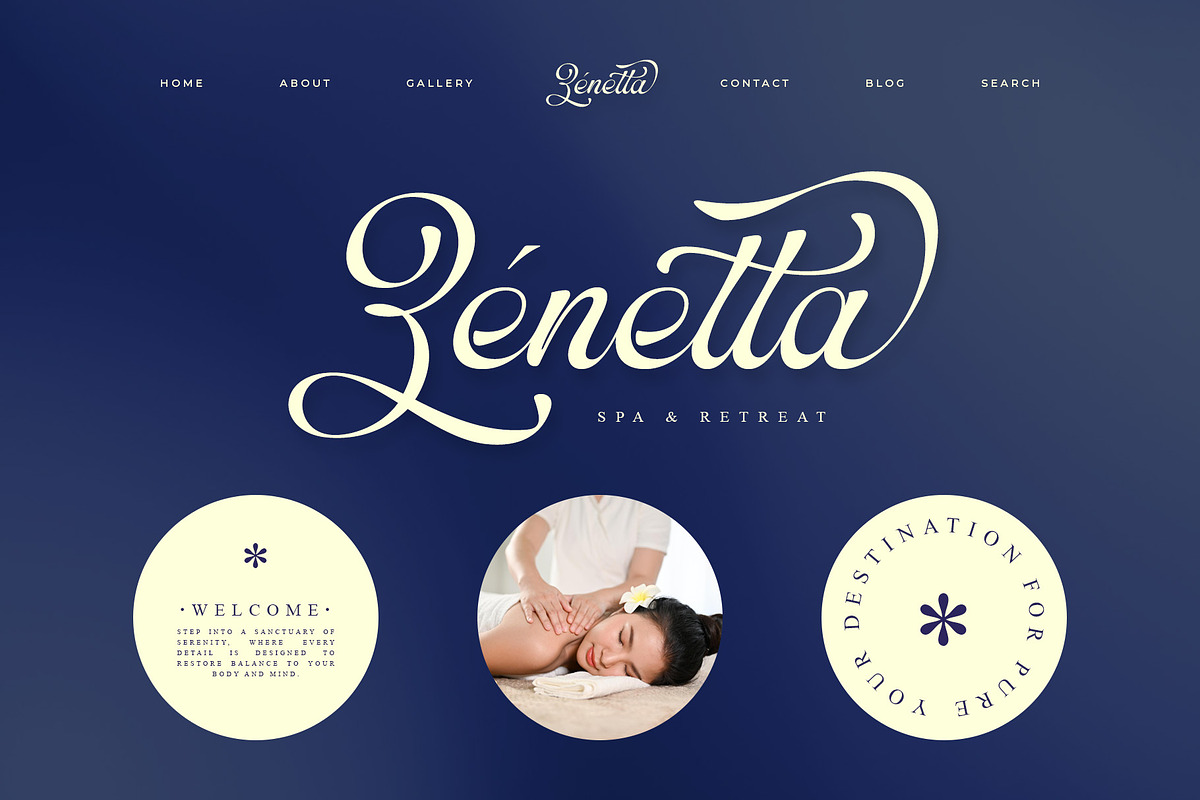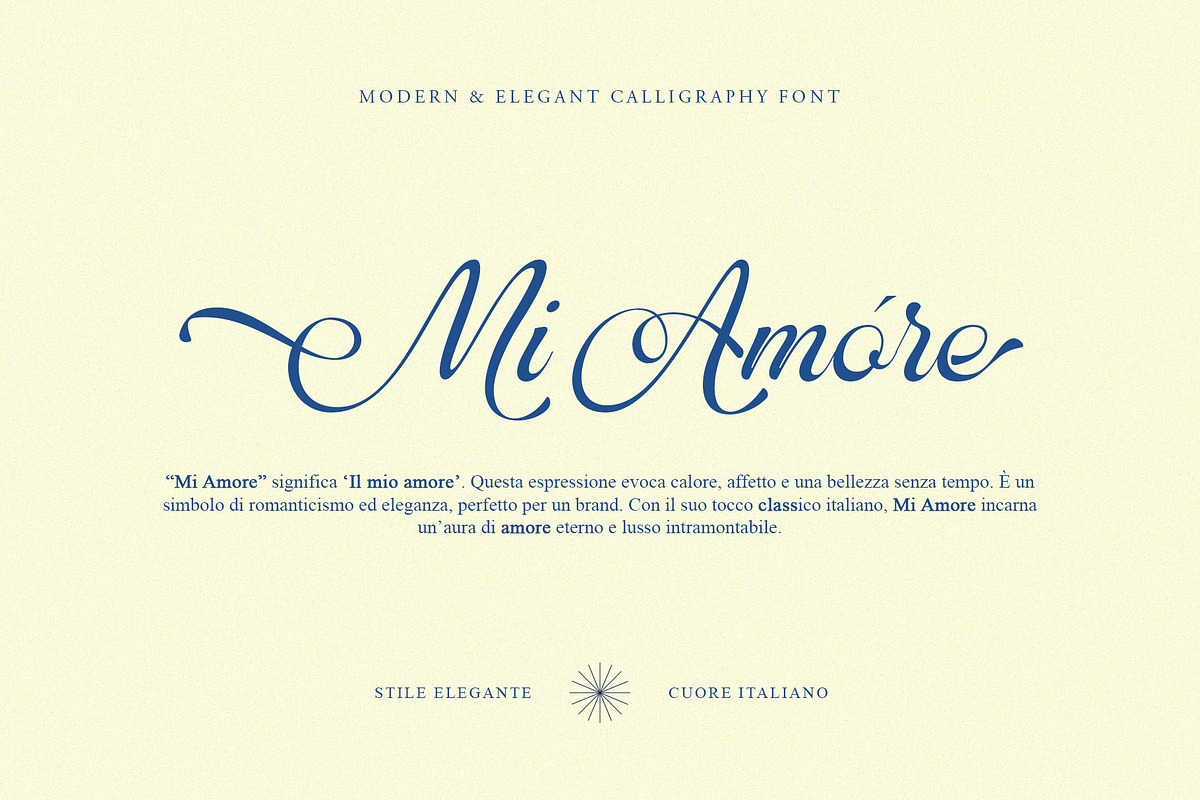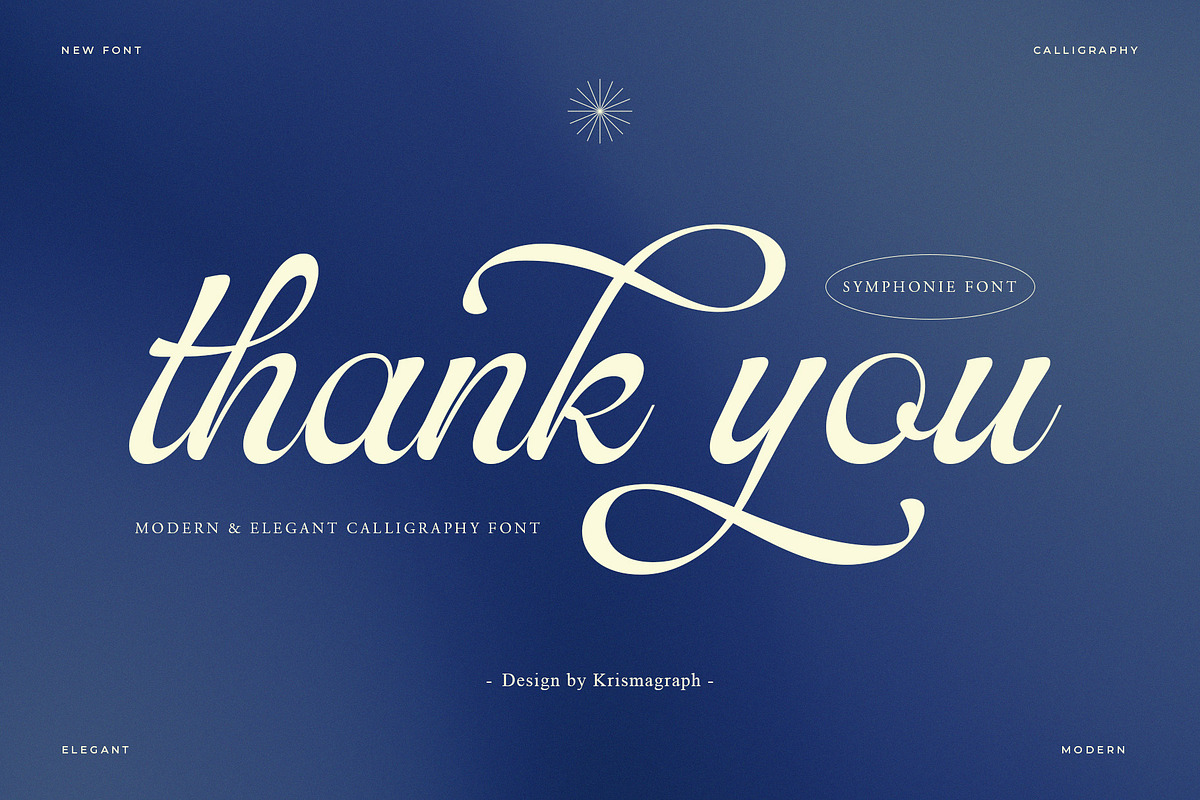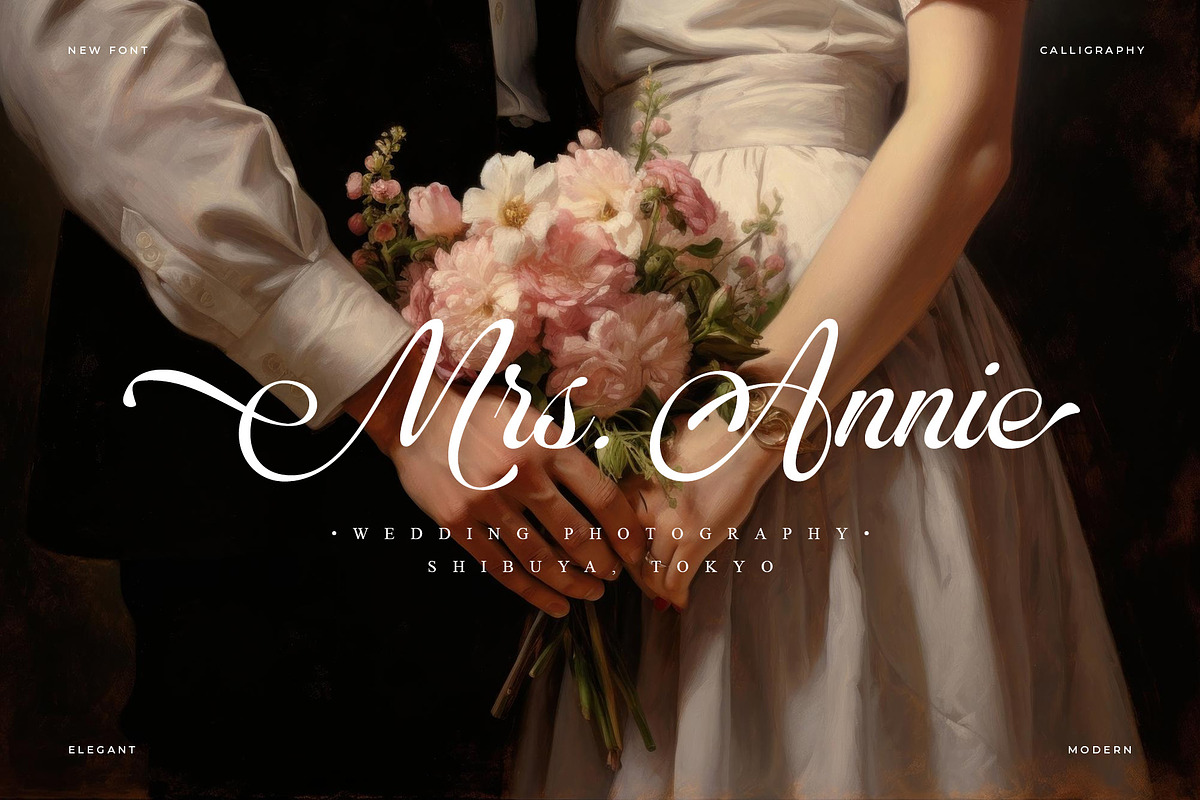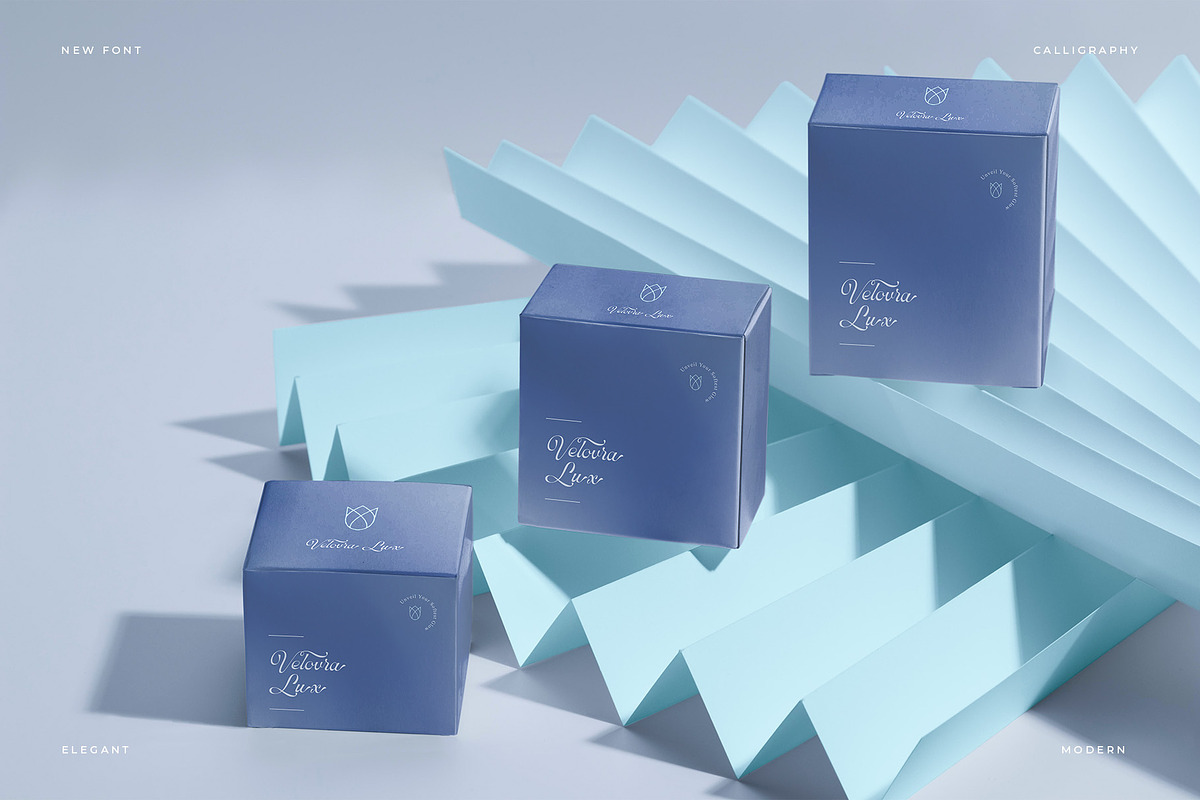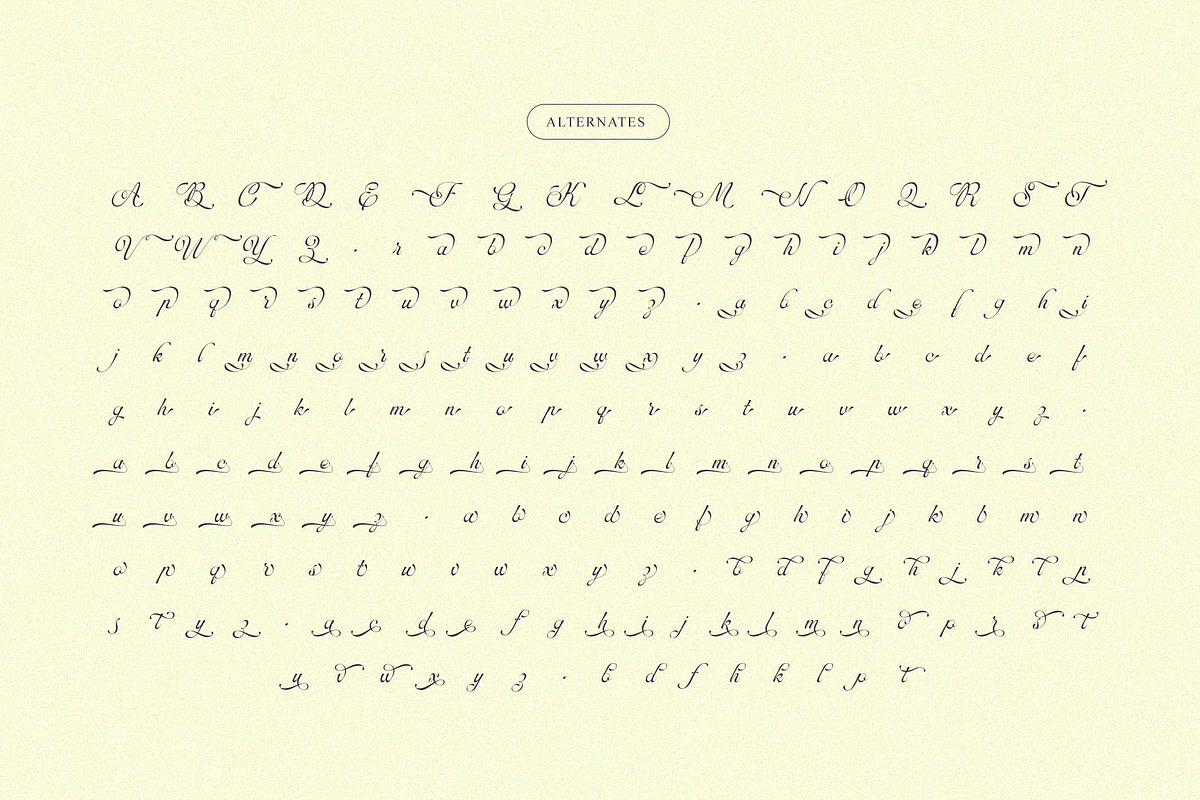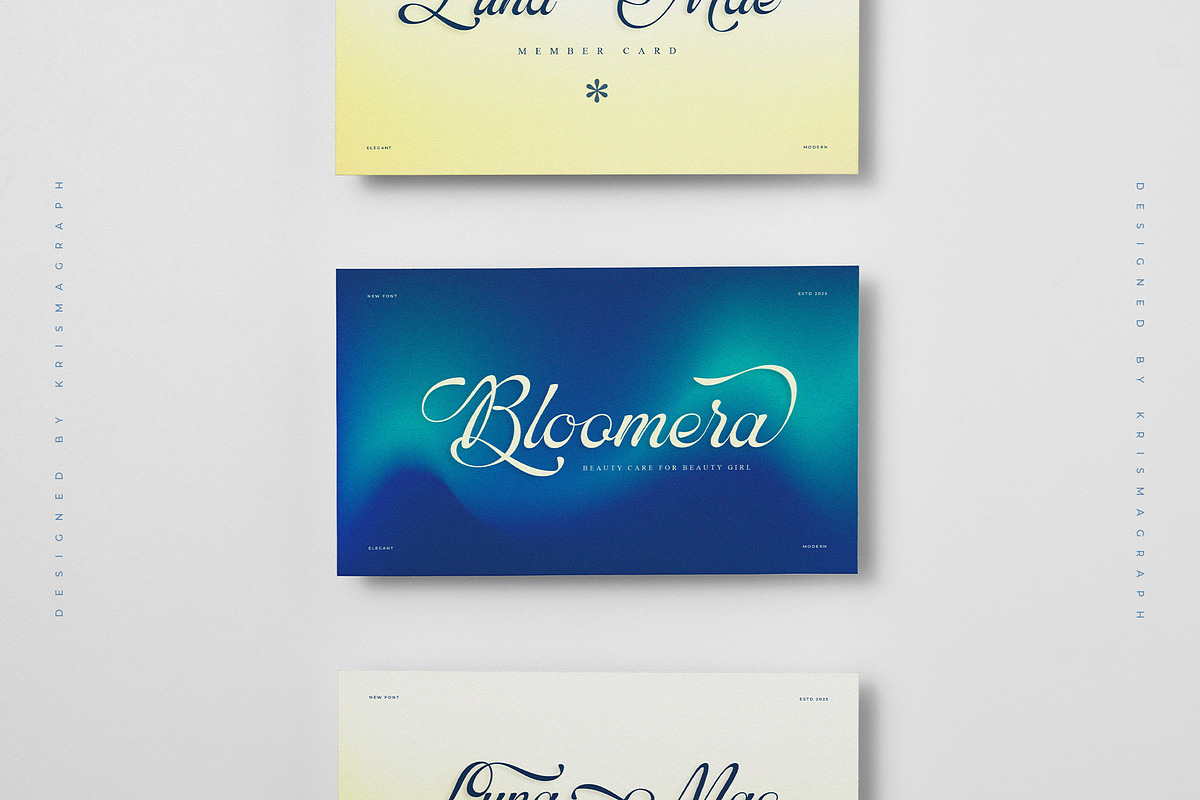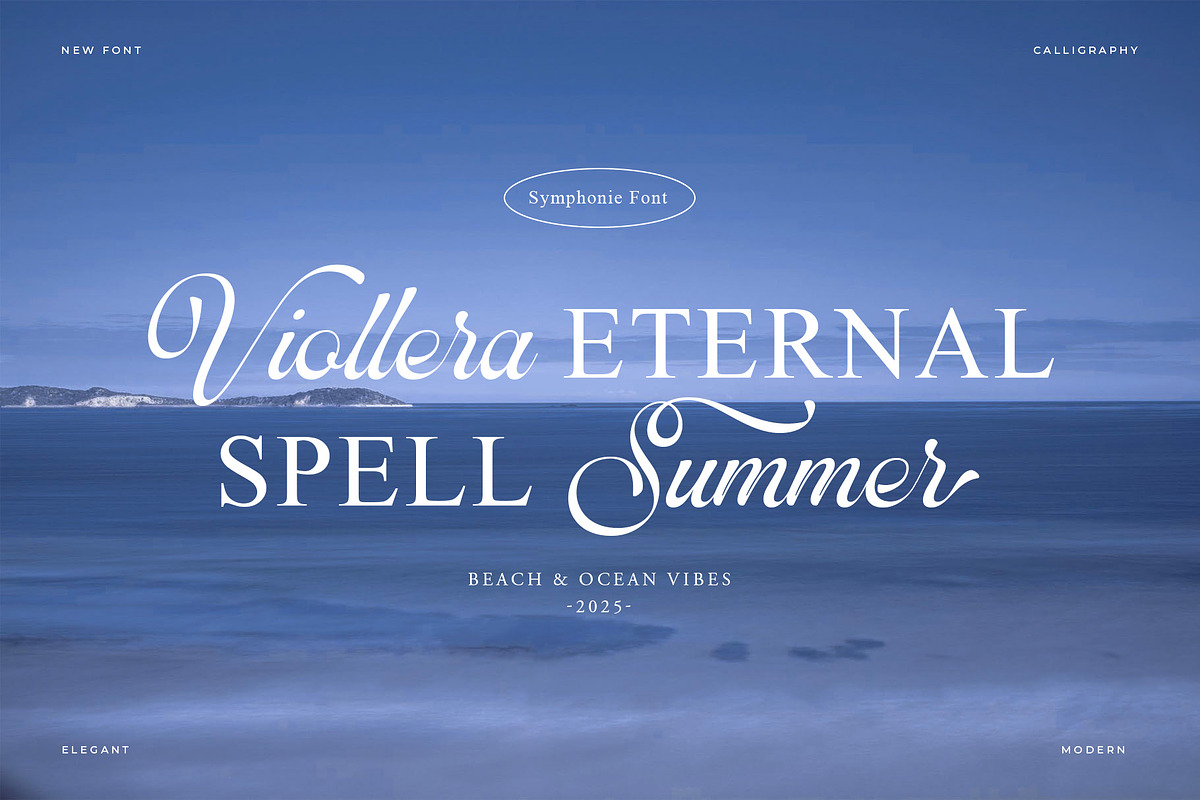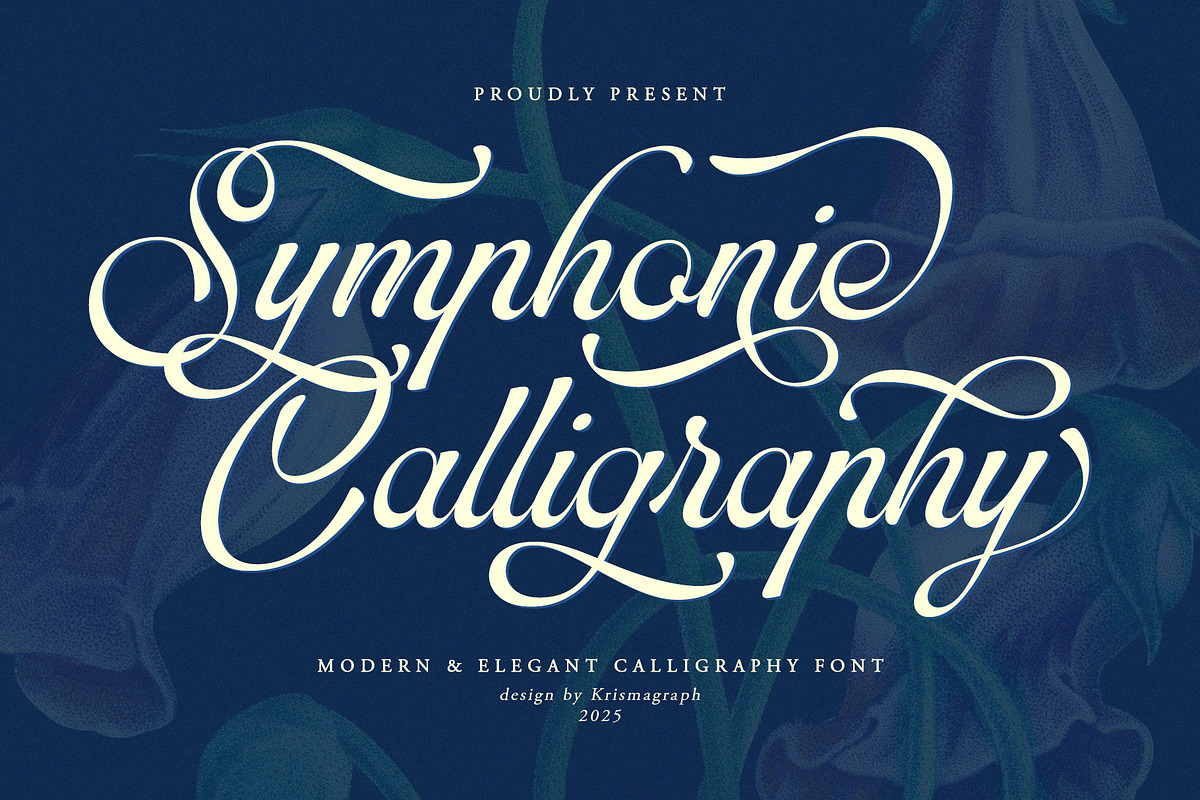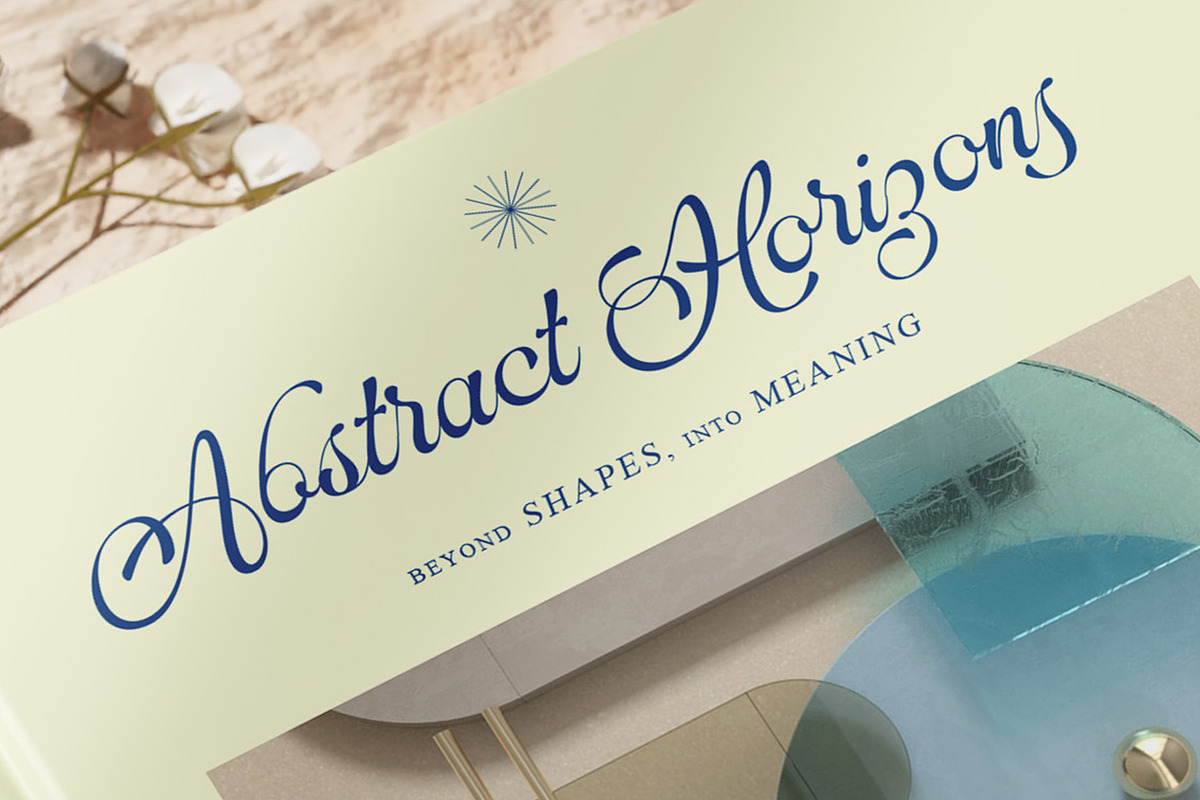
Symphonie Calligraphy
Introducing Symphonie Calligraphy, a modern and elegant calligraphy font designed to bring timeless beauty into your creative projects. With graceful swashes, flowing curves, and refined details, this font captures the essence of classic handwritten artistry while offering a modern touch.
Perfect for wedding invitations, luxury branding, editorial layouts, packaging design, greeting cards, and logos, Symphonie Calligraphy adds sophistication and romance to any project. Its stylish alternates and smooth connections create a natural handwritten feel, making your typography truly unique and memorable.
Symphonie Calligraphy is your go-to typeface when you want elegance, versatility, and a high-end aesthetic.
- Natural handwritten feel for a personal touch
- Beautiful swashes & stylistic alternates
- Numerial